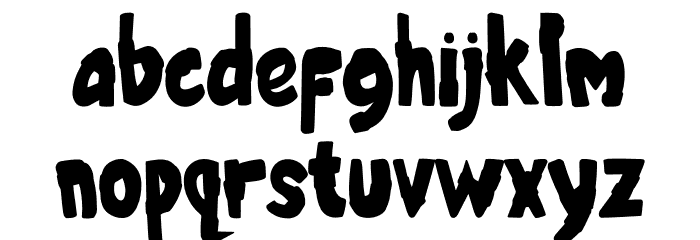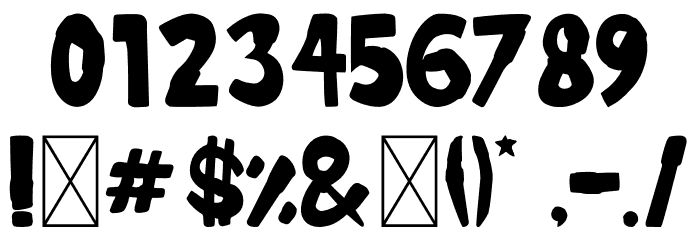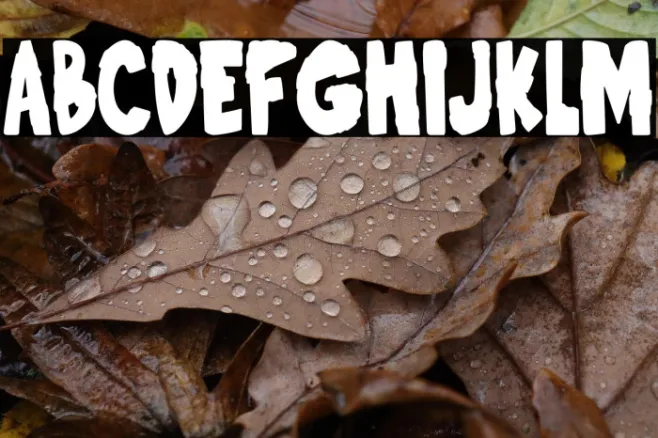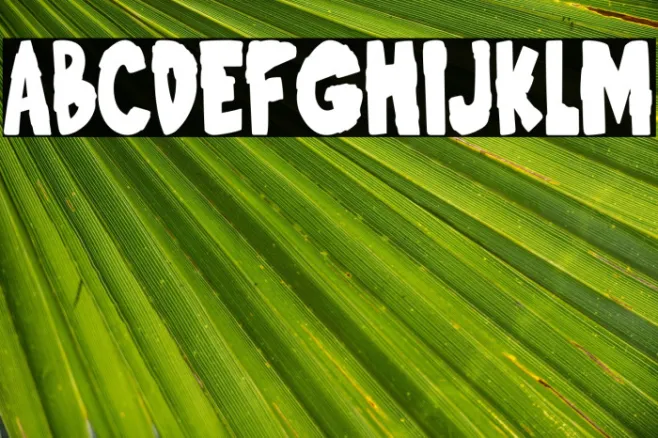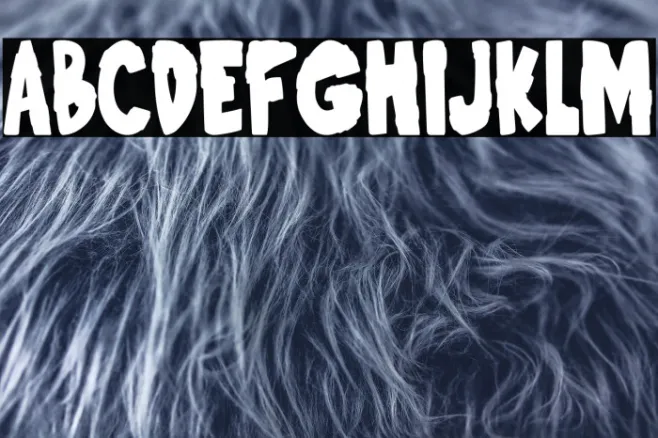
Verband Font
This font features a bold and playful style with a hand-drawn appearance. The letters are thick and uneven, giving it a casual and artistic feel. The uppercase and lowercase characters maintain a consistent weight, with rounded edges and a slightly irregular baseline that adds to its charm. The numbers and special characters follow the same design principles, ensuring a cohesive look across all glyphs. This font is perfect for projects that require a fun and informal touch, such as children's books, posters, or creative branding.
A bold, playful, hand-drawn font with a casual and artistic style.
- Font: Verband
- Proposed Projects: Ideal for children's books, posters, creative branding, and informal designs.